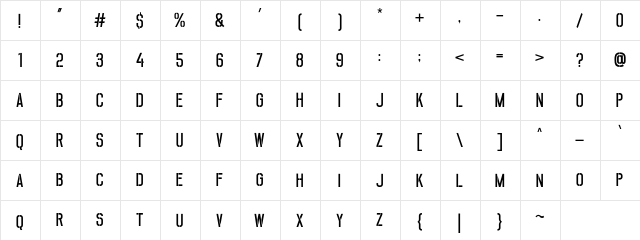
HOWKINS FREE Regular
Design Context for HOWKINS FREE Typeface
HOWKINS FREE is a composed and adaptable typeface that performs quietly and consistently across a wide range of design contexts.